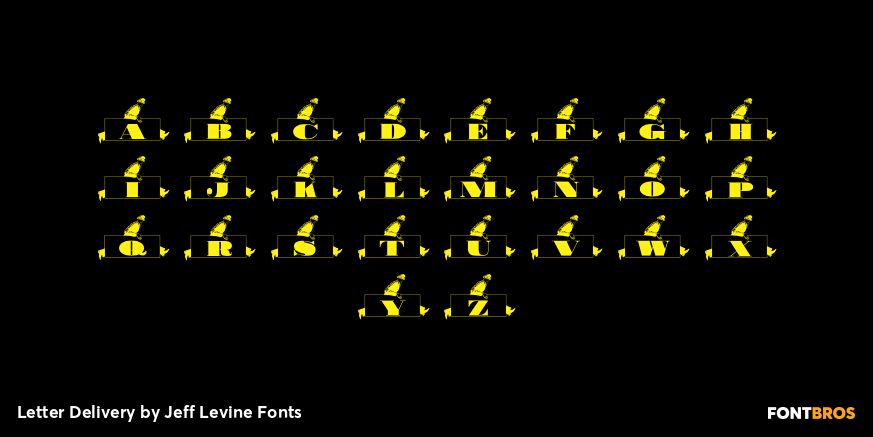
Letter Delivery
The combination of some Bodoni extra-wide wood type letters and an image redrawn from a 1940s package label from the long-defunct Railway Express Agency form the characters in Letter Delivery JNL.
These initials are perfect for personalizing notes, gift labels, personal stationery and other creative projects.